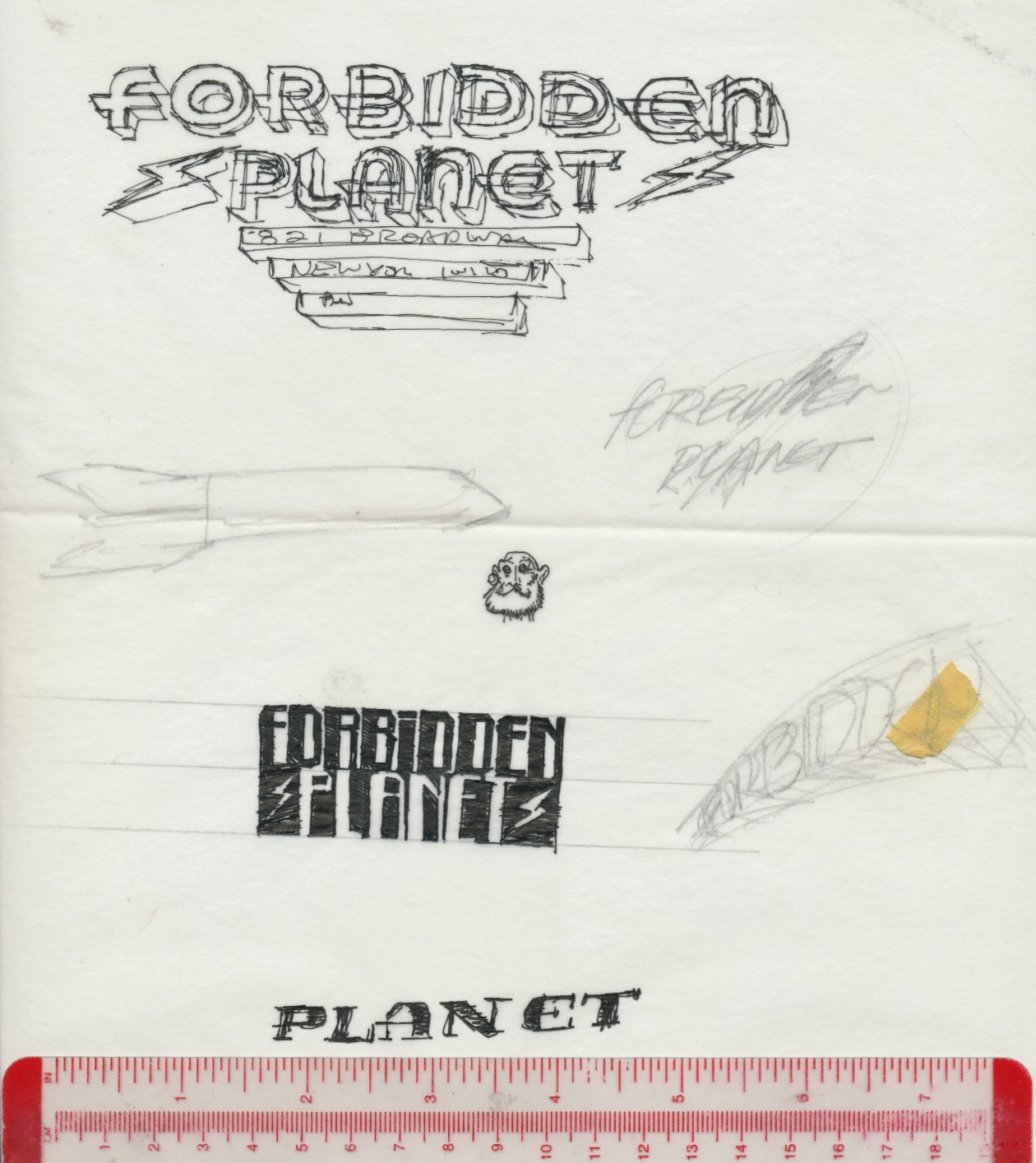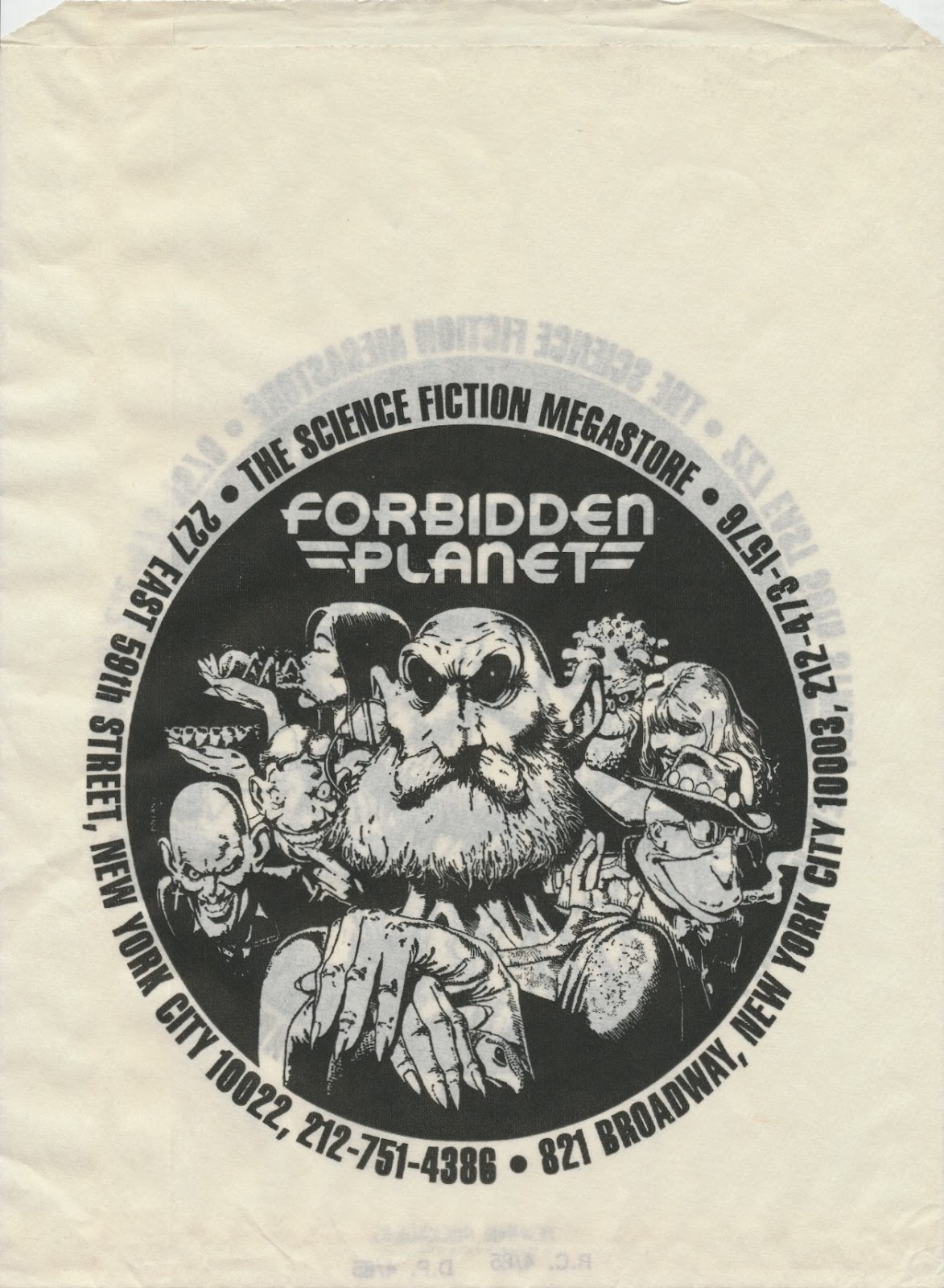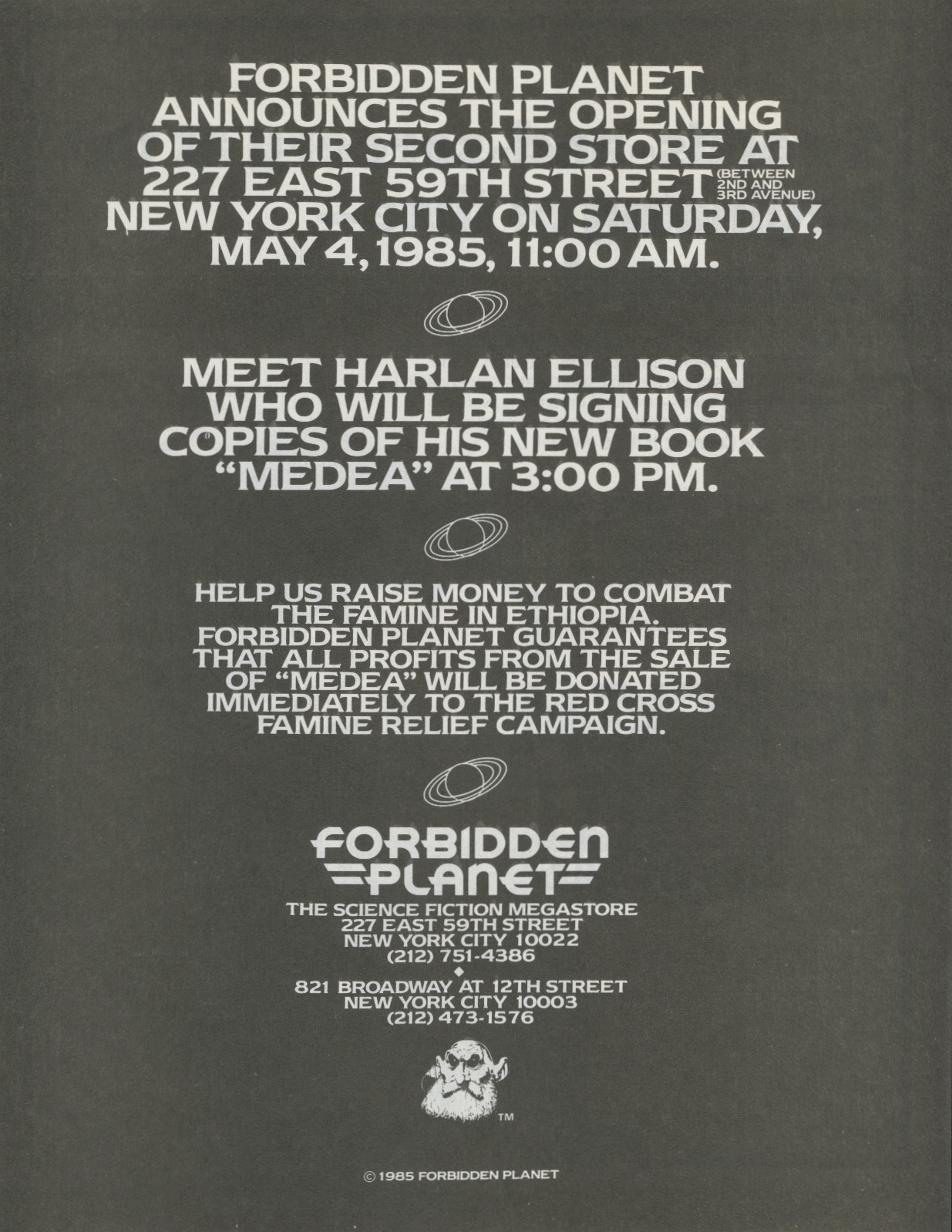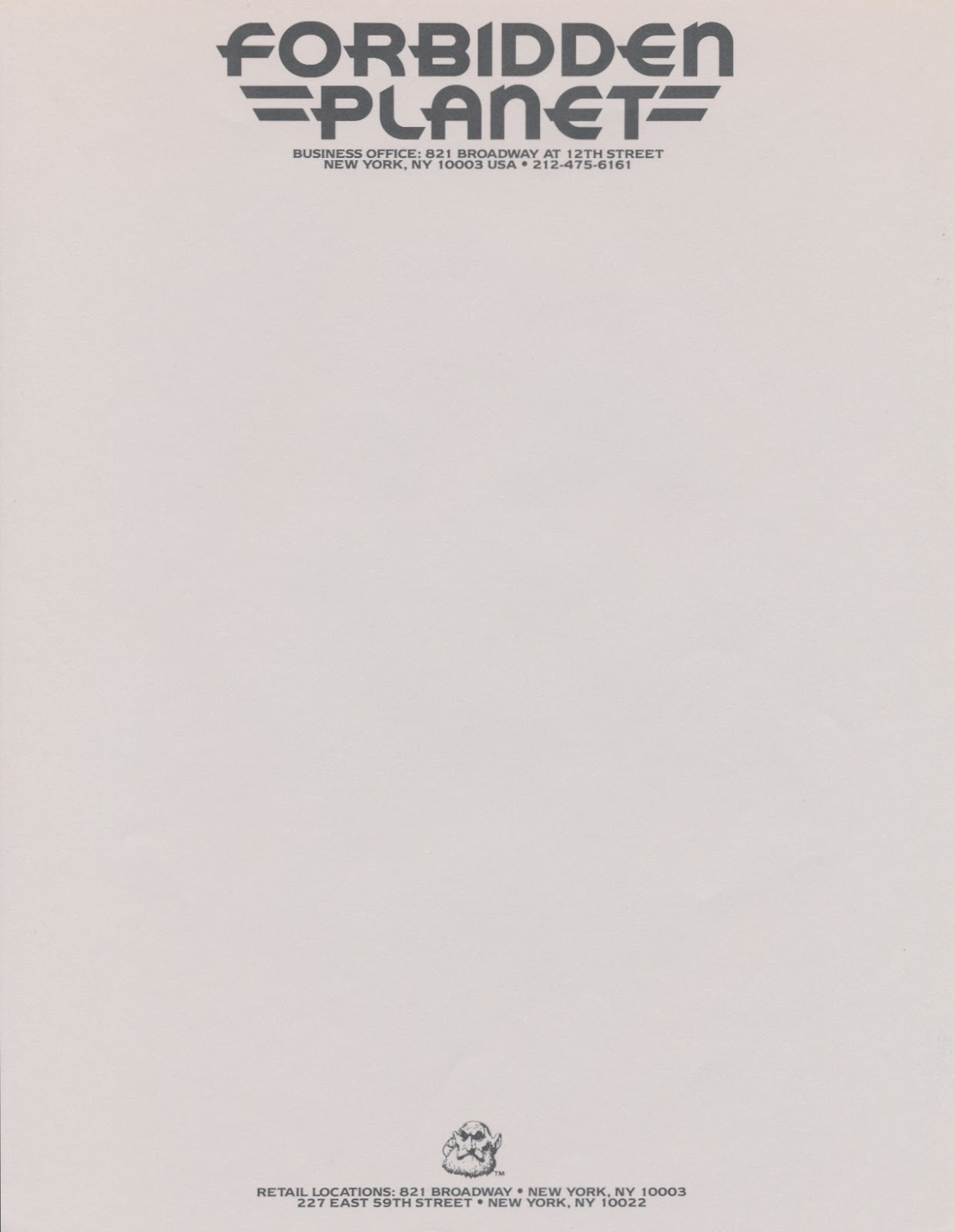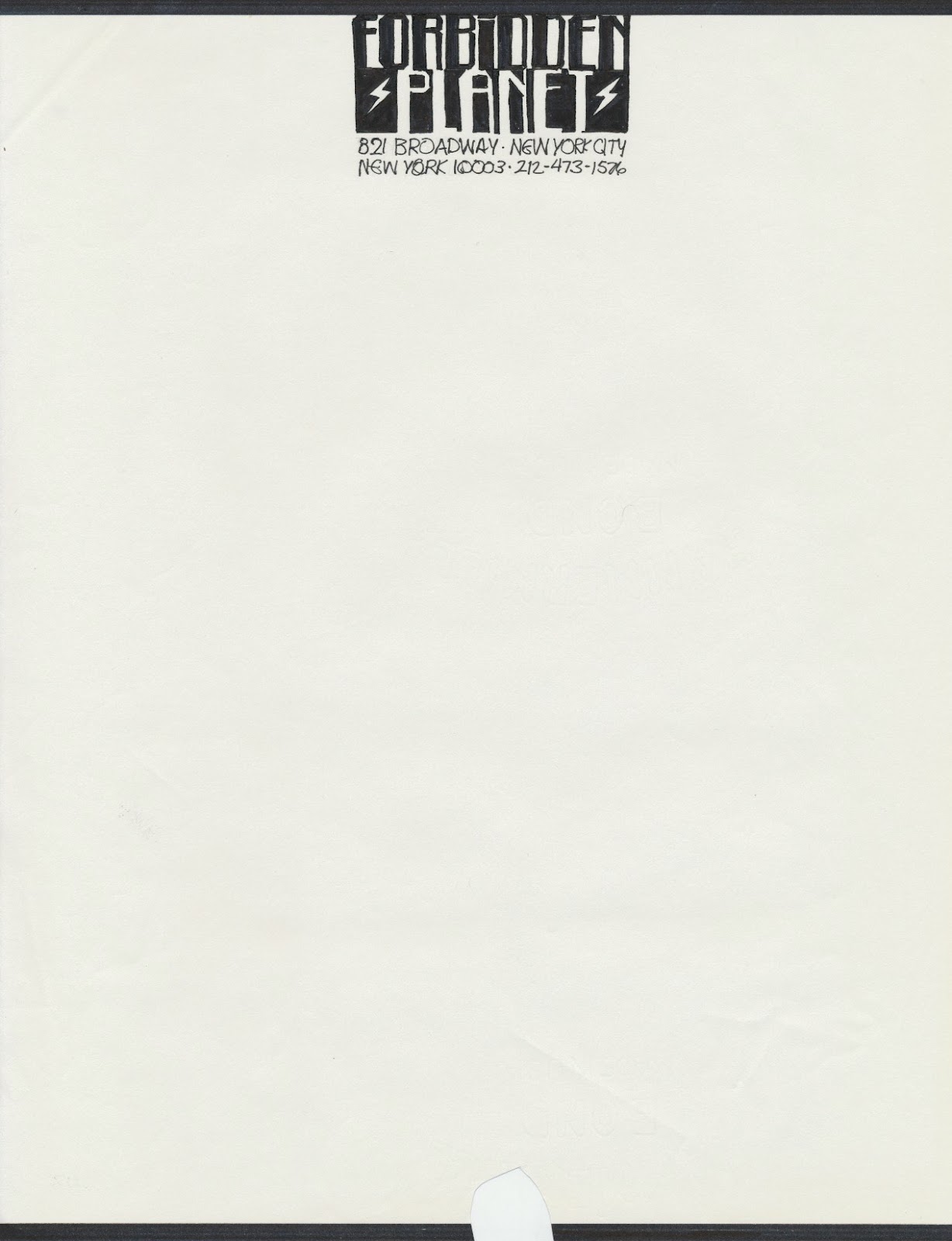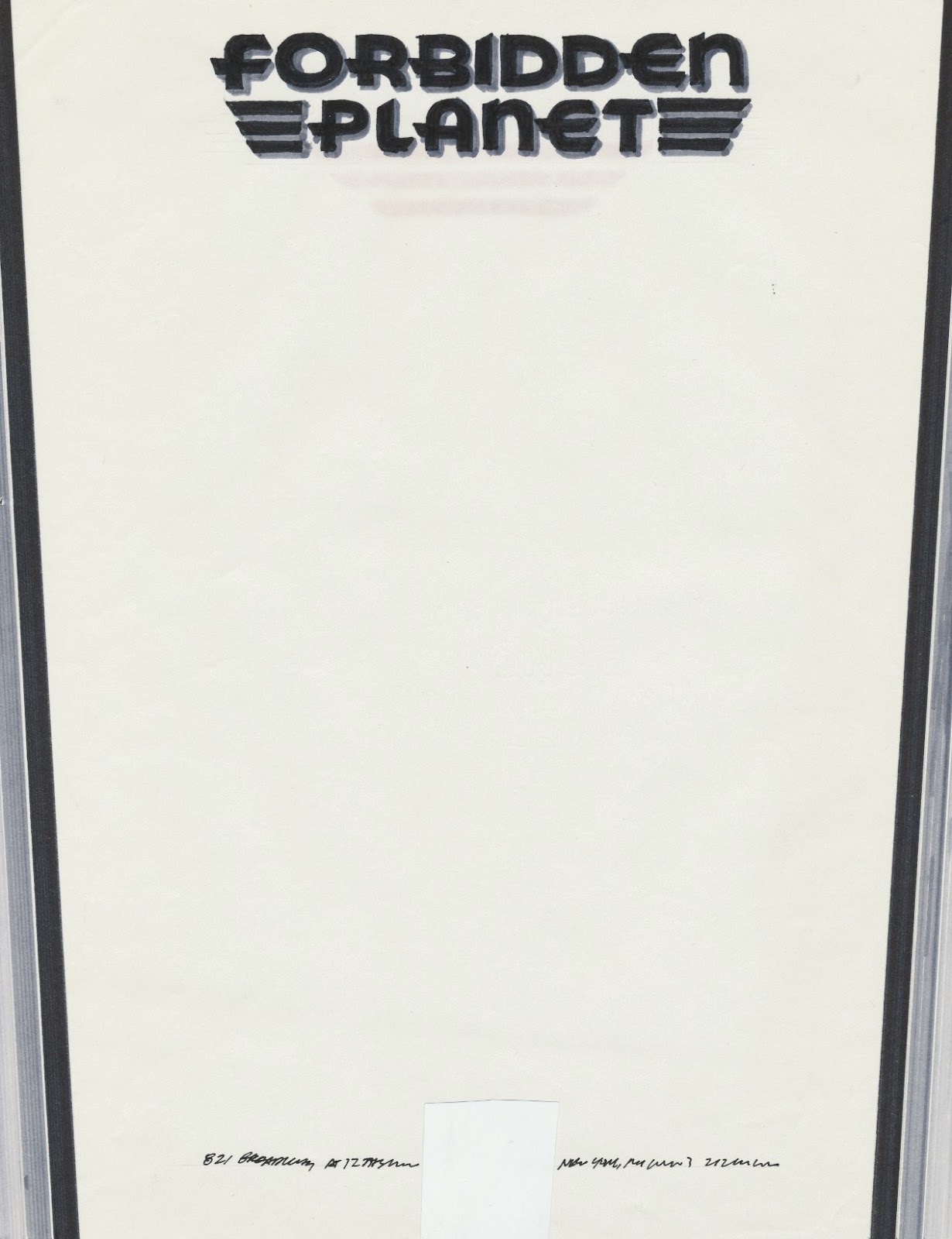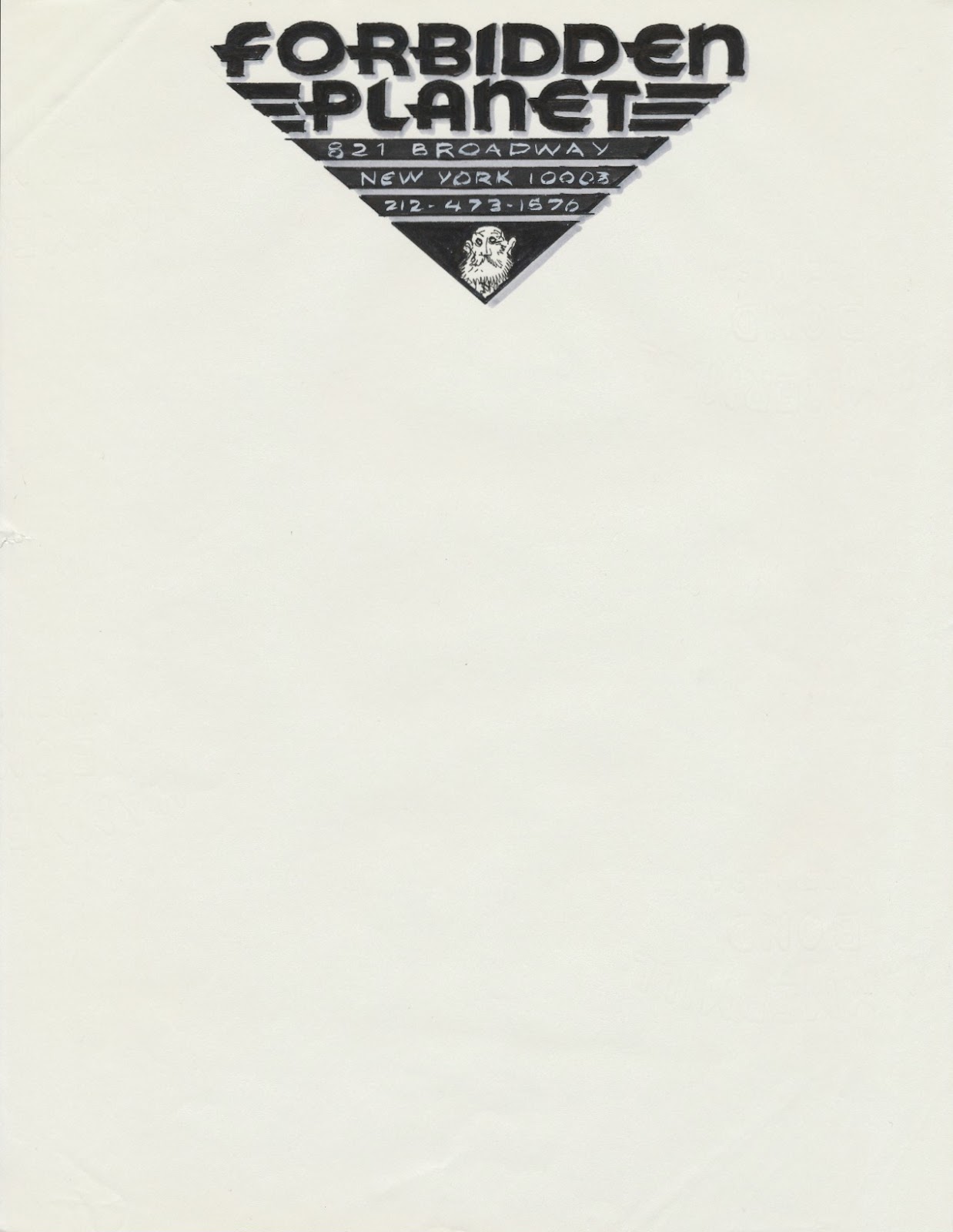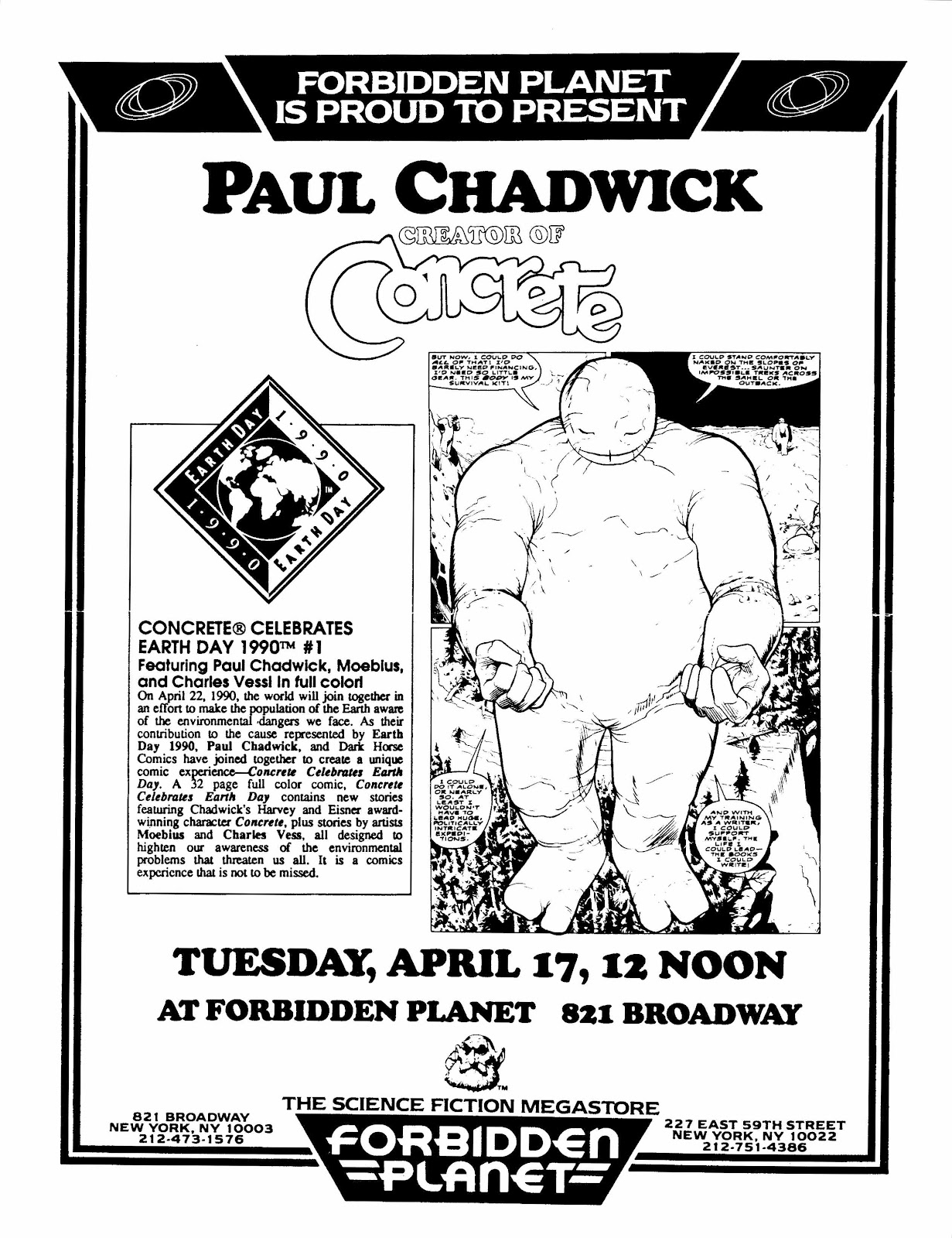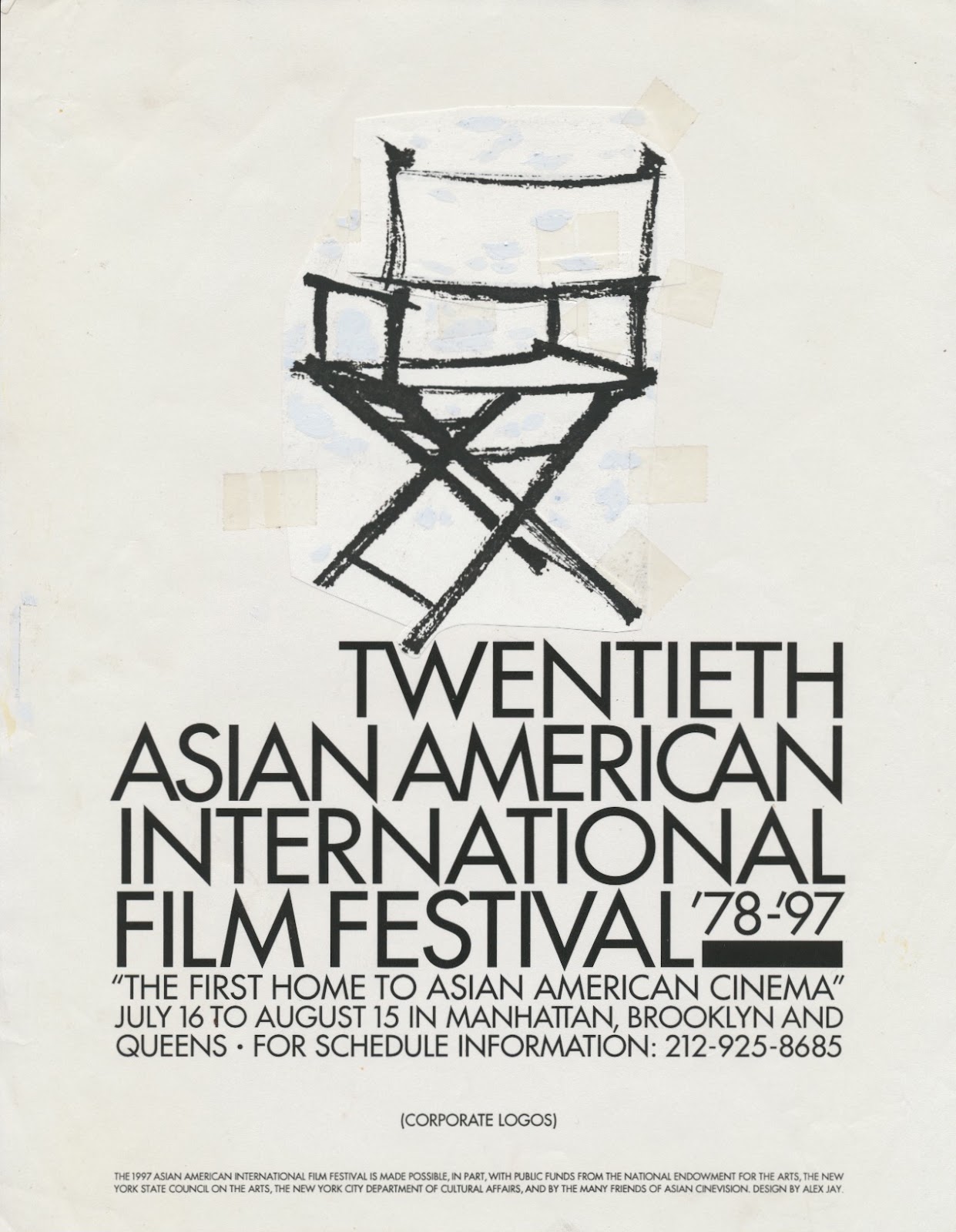
Typography: Asian American International Film Festival
Graphics for Asian CineVision’s
20th Asian American International Film Festival
Concept sketch
Director’s chair drawn with a brush
Director’s chair as an optical illusion;
legs form the Roman numeral twenty.
I used Quark XPress to draw the director’s chair.
The font is Futura Medium. The program book
measures 9.5 by 12.5 in. / 24.1 by 31.75 cm.
Street Scene: Forbidden Planet
• N E W Y O R K C I T Y •
821 Broadway at 12th Street, original Manhattan location
Broadway view
12th Street view
1996 relocation: 840 Broadway at 13th Street; logo by Alex Jay
Broadway view
13th Street view
Forbidden Planet moves to 832 Broadway on July 24, 2012.
The Night Watch by Rembrandt
The Statue of Perseus by Benvenuto Cellini
The Horse Fair by Rosa Bonheur
Hope by George Frederick Watts
Joan of Arc by Jules Bastien-Lepage
The Toilet of Venus by Francois Boucher
The Laughing Cavalier by Frans Hals
The Age of Innocence by Sir Joshua Reynolds
Mona Lisa by Leonardo da Vinci
The Potato Eaters by Vincent van Gogh
Bartolommeo Colleoni Statue by Andrea del Verrocchio
The Song of the Lark by Jules Adolphe Breton
The 1940 census listed “Ira Schapps” at 515 West 110 Street in Manhattan, his same residence in 1935. He remained a commercial artist, who had two years of high school education.
Advertising Age, December 30, 1940, said
Join Superior Studios
Thomas G. Wiley has been named vice-president, and Jule Bauch, secretary and production manager, of Superior Studios, Inc., New York. Hector Zambrano and Ira Schnapp have joined the technical staff and Sam Golden and Merlin Lewis, the sales force.
This logo was used for the next 20 years.
Envelope and business cards
Letterhead
Advertisement for the uptown store
appeared in Locus May 1985.
Small shopping bag
Canvas tote bag
Redesigned business cards
Calendar bookmarks
A selection of store signing promotions
1985
1986
1987
1988
1989
1990
Production art for 1996 Village Voice ad
My headline but not my postcard design.
Forbidden Planet Logo, Part 1
The Forbidden Planet Halloween Ads, 1982–1989